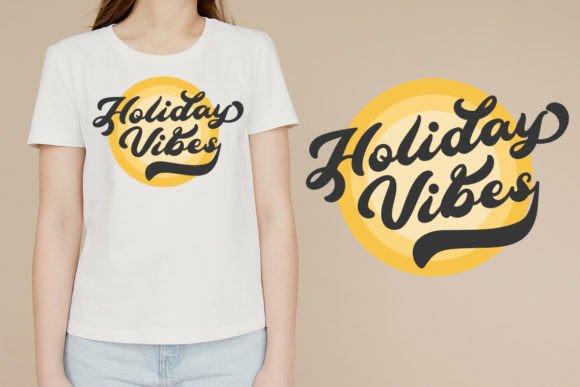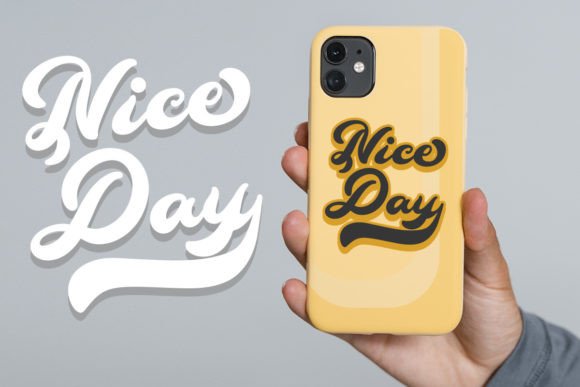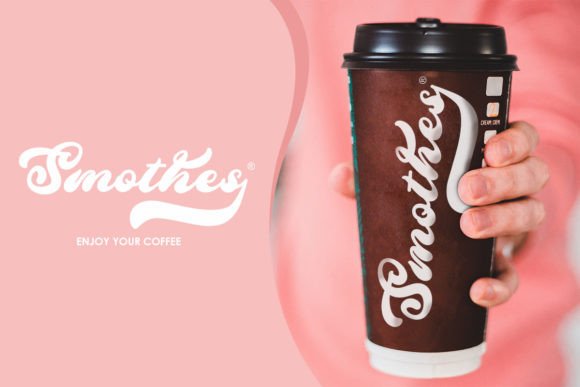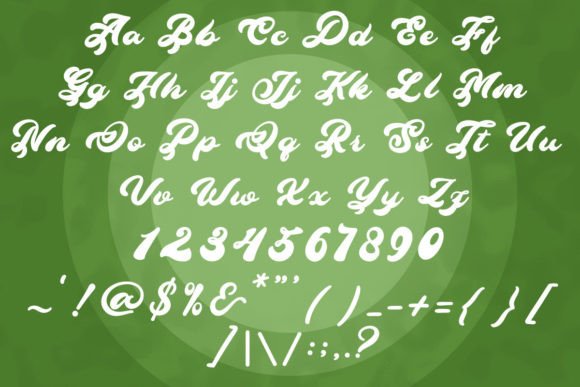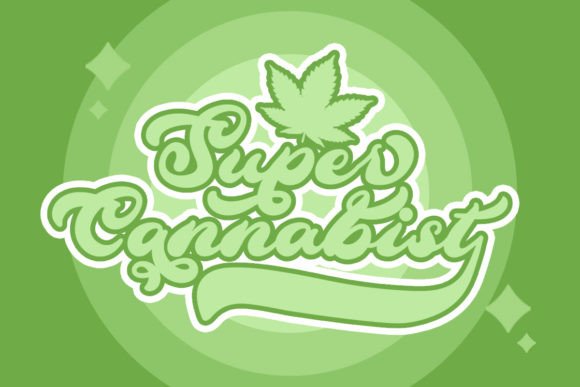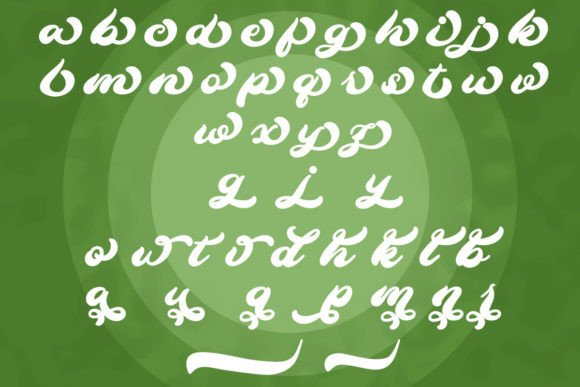
Introduction to Mango Splash Font Font
Fonts play a crucial role in design, and the Mango Splash Font font is a typeface that brings both character and versatility to any project. Whether you’re working on a branding project, a website, or a print design, the Mango Splash Font font offers a unique style that can elevate your work.
The Mango Splash font is a bold and captivating typeface that embodies the essence of retro design with its distinctive line style.
Its strong and dynamic letterforms make a statement, adding a touch of nostalgia and excitement to your projects Perfect for vintage-inspired designs, logos, posters, and more, this font will leave a lasting impression with its retro flair.
The Mango Splash Font font is more than just a typeface – it’s a design tool that helps you communicate your message with style and clarity. Its unique character set and versatile design make it suitable for a wide range of applications, from elegant invitations to bold headlines.
With its carefully crafted letterforms and balanced proportions, the Mango Splash Font font ensures readability and visual appeal across all mediums.
The Mango Splash Font font stands out with its unique design, exceptional readability, and versatility across various design applications.